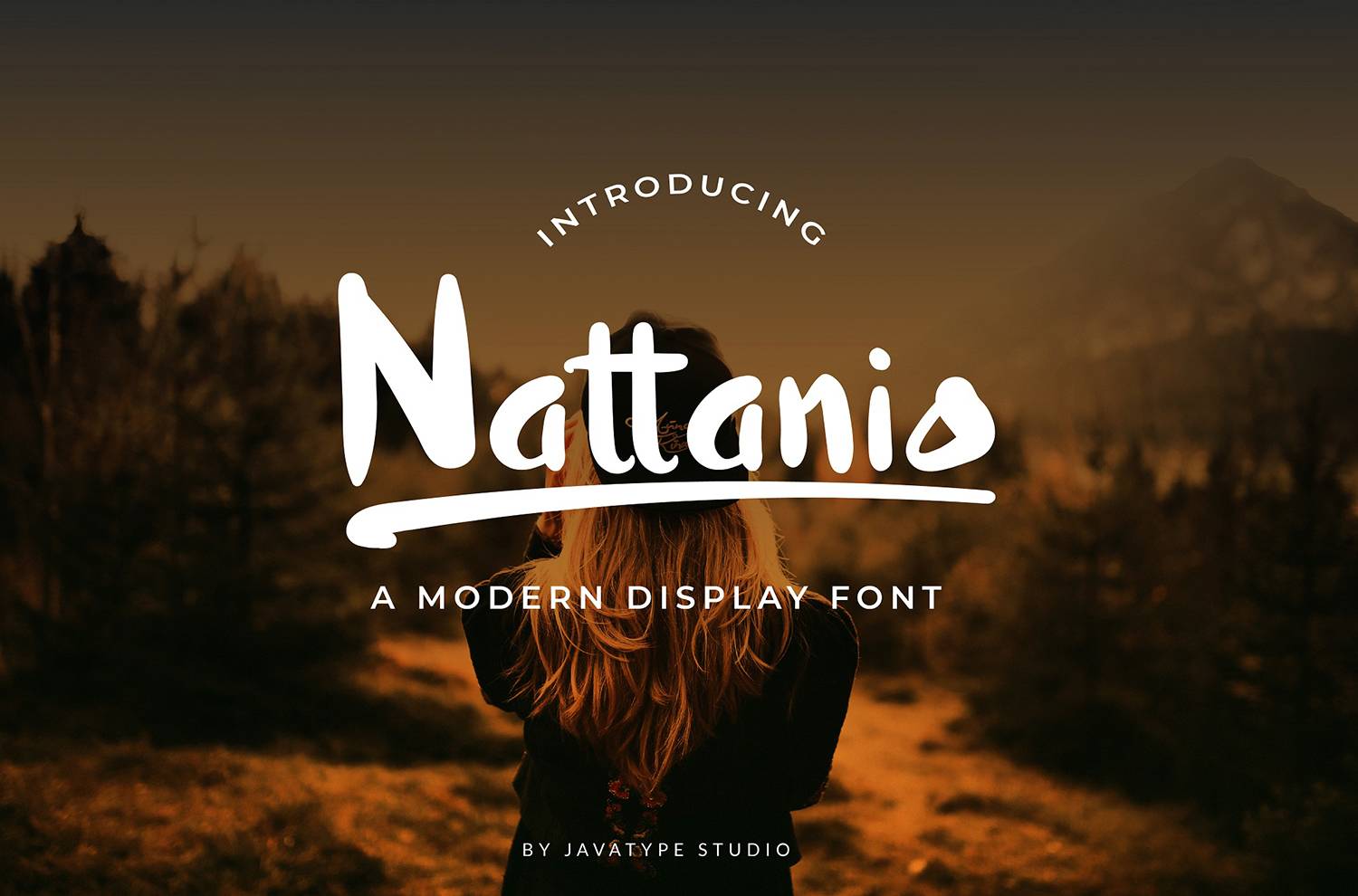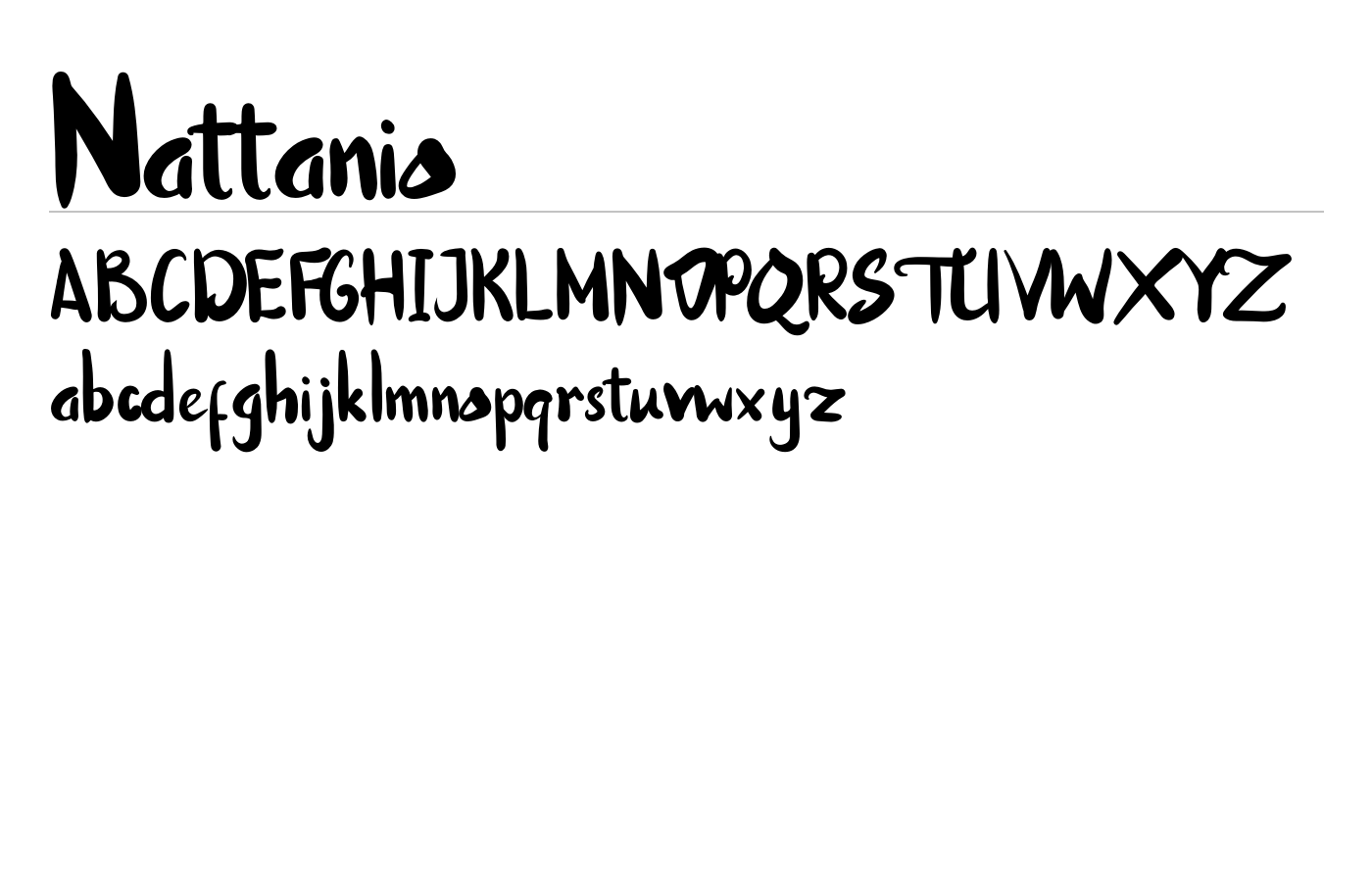
Nattanio is a playful and casual handwritten font featuring uneven, rounded strokes that give it a warm, friendly character. Its bold, slightly condensed letterforms with irregular shapes make it perfect for creative projects, children’s branding, and informal designs that need a personal, approachable touch. This font works well in logos, posters, and fun editorial layouts where a unique, lively style is desired.
Nattanio Font
About Nattanio Font